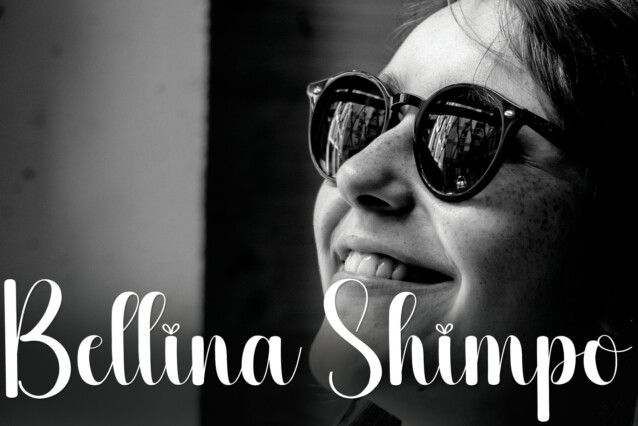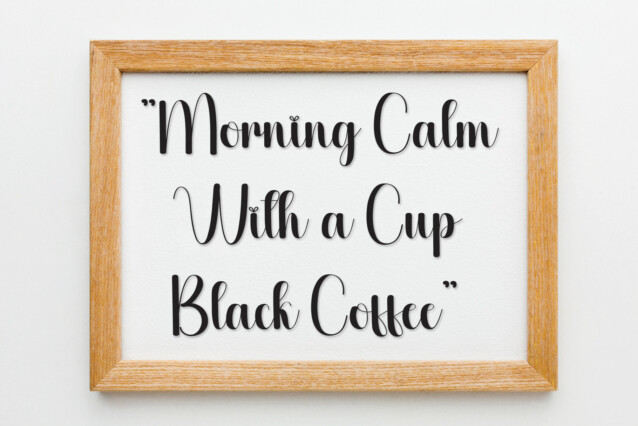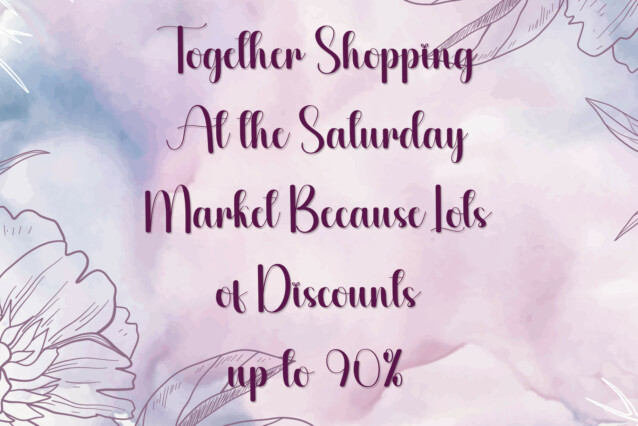
Kichen Script Font
Kichen Script Font is a flowing handwritten font, described by an elegant touch, perfect for your favorite projects. Fall in love with its incredibly distinct and timeless style and use it to create spectacular designs!